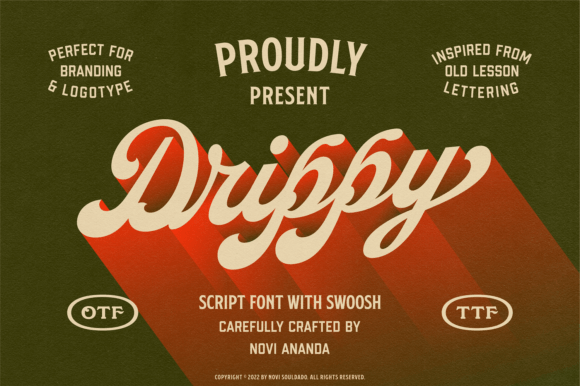
Drippy Font: A Perfect Blend of Classic and Modern Retro Vibes
In the world of typography, fonts play a crucial role in conveying the tone and personality of a brand. With the ever-evolving design trends, it’s essential to stay ahead of the curve with unique and captivating fonts. One such font that has gained significant attention in recent times is the Drippy Font. Inspired by vintage educational lettering books, posters, and decorative materials, Drippy has emerged as a distinctive font that bridges the gap between classic historical ambiance and modern retro vibes.
The Birth of Drippy Font
The Drippy Font was born out of a meticulous process of researching vintage educational lettering books, posters, and decorative materials from the past. The creator of Drippy drew inspiration from the visual trends of yesteryear, aiming to craft a font that would not only pay homage to the classics but also infuse a modern twist. The result is a font that exudes a sense of nostalgia while being refreshingly contemporary.
Key Features of Drippy Font
Drippy Font boasts several features that make it stand out in the industry. Some of its notable characteristics include:
- Swashy Touch: Each letter in the Drippy Font has a unique swashy touch, making it more remarkable and distinctive.
- Versatility: Drippy Font is suitable for a wide range of applications, including logotype, branding projects, label design, sign painting, and various advertising needs.
Uses of Drippy Font
Drippy Font is an incredibly versatile font that can be used in various design projects. Some of the ways you can utilize Drippy Font include:
- Logotype: Create a memorable logo for your brand with Drippy Font.
- Branding Projects: Use Drippy Font to add a touch of elegance and sophistication to your branding materials.
- Label Design: Create eye-catching labels with Drippy Font that will make your products stand out.
- Sign Painting: Drippy Font is perfect for sign painting, adding a touch of classic charm to your signs.
- Advertising: Use Drippy Font in your advertising materials to create a unique and captivating visual identity.
Benefits of Using Drippy Font
Using Drippy Font in your design projects offers several benefits, including:
- Uniqueness: Drippy Font helps you stand out from the crowd with its distinctive swashy touch.
- Versatility: The font’s versatility allows you to use it in various design projects.
- Elegance: Drippy Font adds a touch of elegance and sophistication to your designs.
- Modern Retro Vibes: The font’s blend of classic and modern elements gives your designs a unique retro vibe.
Tips for Using Drippy Font Effectively
To get the most out of Drippy Font, consider the following tips:
- Pair with Neutral Backgrounds: Pair Drippy Font with neutral backgrounds to make it stand out.
- Experiment with Colors: Experiment with different colors to find the perfect combination that suits your design.
- Use in Headings: Use Drippy Font in headings to add a touch of elegance and sophistication.
- Mix with Other Fonts: Mix Drippy Font with other fonts to create a unique and captivating visual identity.
In conclusion, Drippy Font is a unique and captivating font that offers a perfect blend of classic historical ambiance and modern retro vibes. Its swashy touch, PUA encoding, and versatility make it an excellent choice for various design projects. By using Drippy Font, you can add a touch of elegance and sophistication to your designs, making them stand out from the crowd.